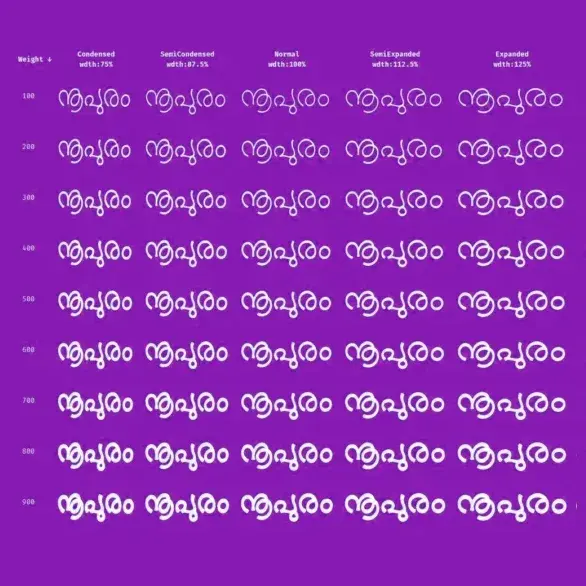
If you are on the lookout for a unique Malayalam font that blends tradition with modern style, the Nupuram font family is a fantastic choice. It’s elegant, versatile, and perfect for a variety of design projects. But where exactly can you purchase the Nupuram font family? I’ve done the legwork to help you find the best places to get your hands on this beautiful typeface.
Nupuram is not just any font. It carries the essence of Malayalam script with a fresh twist. Whether you’re designing a poster, creating content, or working on branding, this font can add that special touch you need. Let’s dive into the details and explore how and where you can buy Nupuram fonts easily and safely.
Always avoid downloading fonts from unknown or suspicious websites. It’s better to invest a little in a legitimate font than risk your computer’s security or your project’s integrity.
Tips for Using Nupuram Font Family in Your Projects
Once you have your Nupuram font family, it’s time to put it to good use. Here are some practical tips to make the most of this beautiful Malayalam font:
Pair it wisely: Combine Nupuram with simple Latin fonts for bilingual projects.
Use different weights: Play with bold, regular, and light styles to create hierarchy.
Mind the spacing: Malayalam script can be intricate, so adjust letter spacing for clarity.
Test readability: Check how the font looks on different screen sizes and print materials.
Respect cultural nuances: Use the font in contexts that honor Malayalam language and culture.
Nupuram works well in branding, editorial design, social media posts, and more. Its clean yet traditional look makes it versatile for both formal and casual projects.